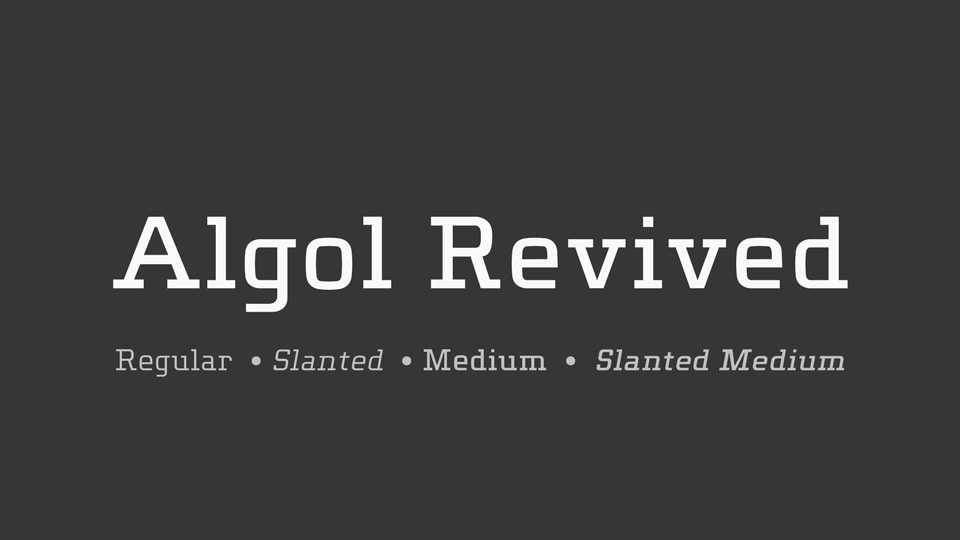
Download Algol Revived typeface, a geometric serifed font family in two weights and slanted version, reviving the Algol font designed by Adrian Frutiger in 1963 for typesetting the code portions of a manual on ALGOL.
Designer: Michael Sharpe